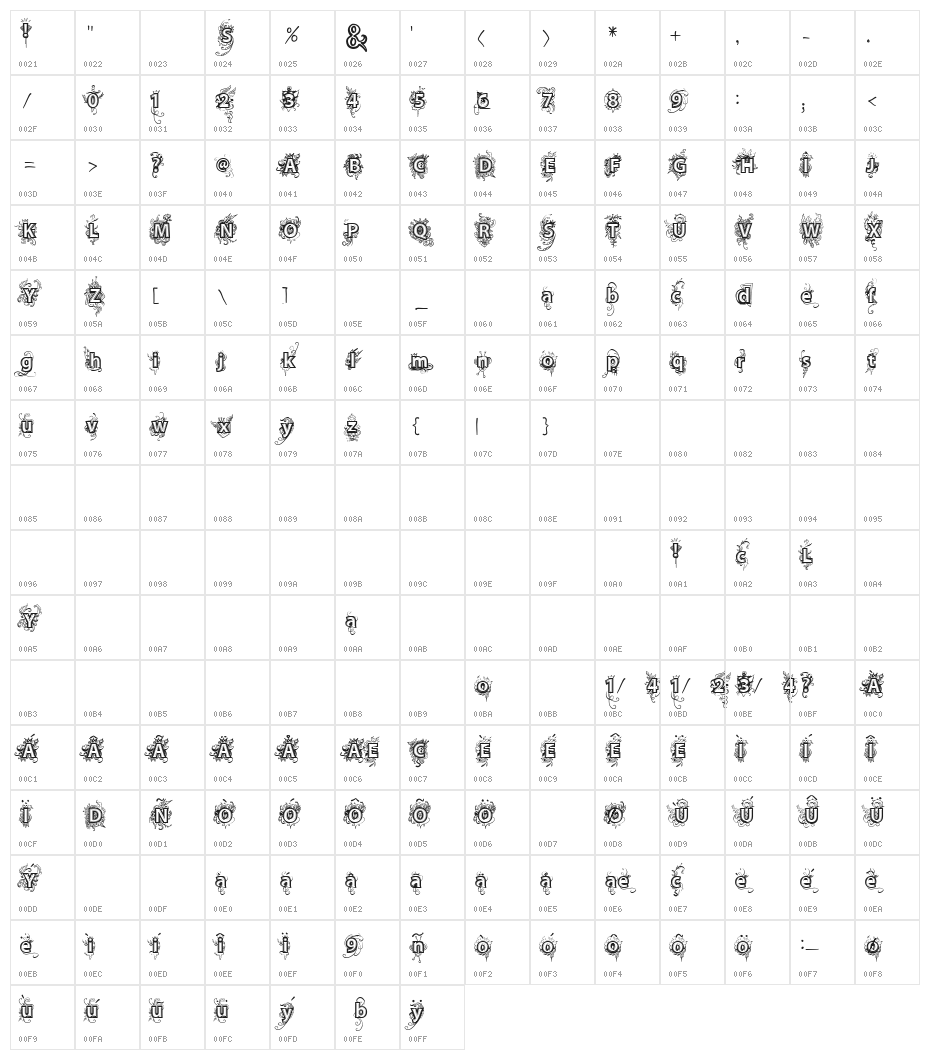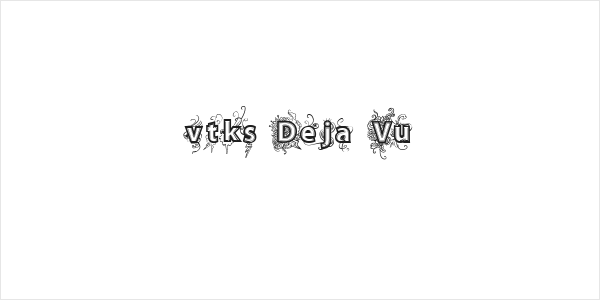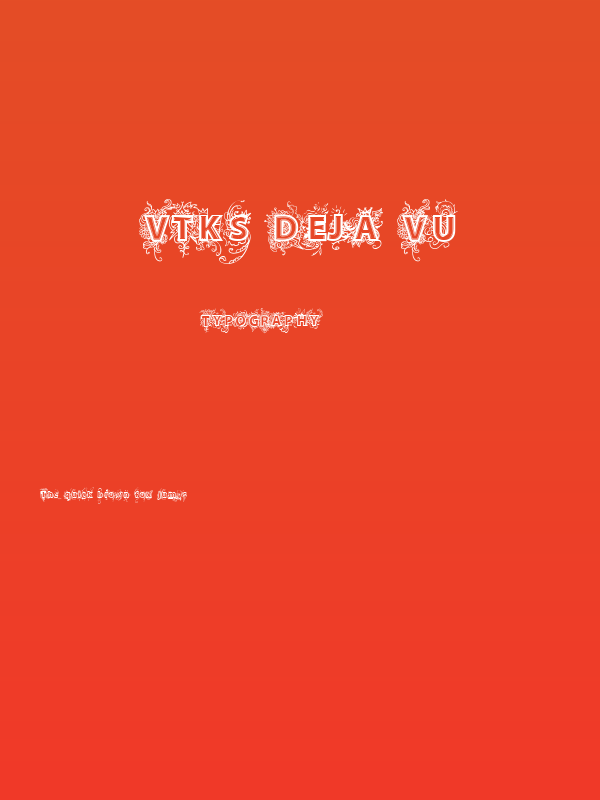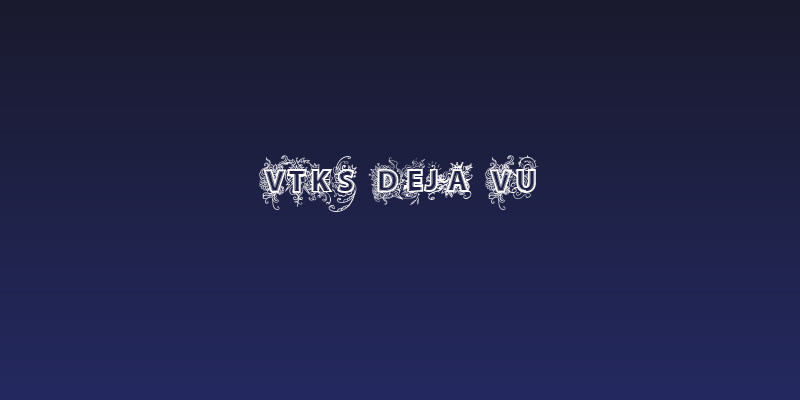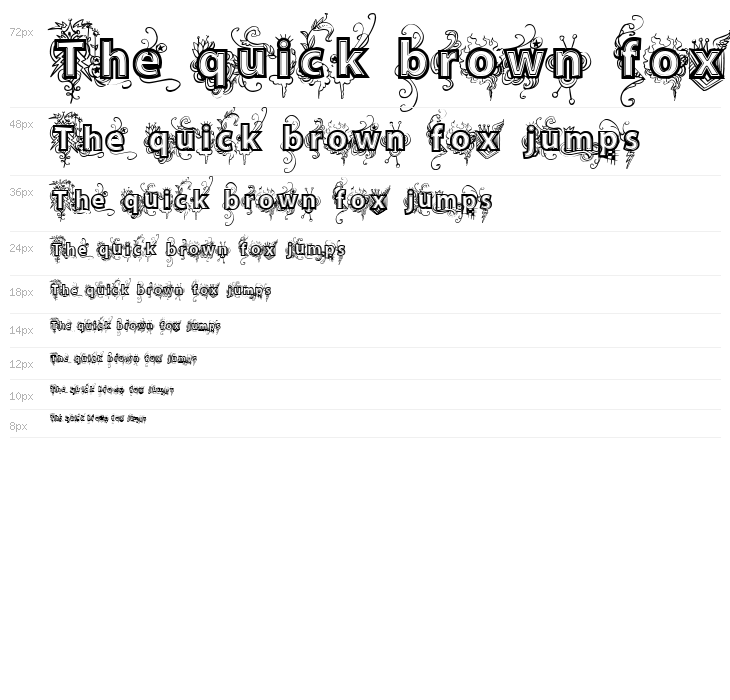
vtks Deja Vu Font
vtks Deja Vu Description
This font is a highly decorative and intricate typeface that combines bold, uppercase and lowercase letters with elaborate floral and ornamental embellishments. Each character is surrounded by swirling vines and leaves, creating a whimsical and artistic appearance. The font's unique style makes it stand out, with a playful yet sophisticated look. The detailed design elements add a sense of movement and elegance, making it suitable for creative and expressive projects. The characters are well-defined, with a strong presence due to the bold outlines, while the decorative elements provide a touch of fantasy and charm.